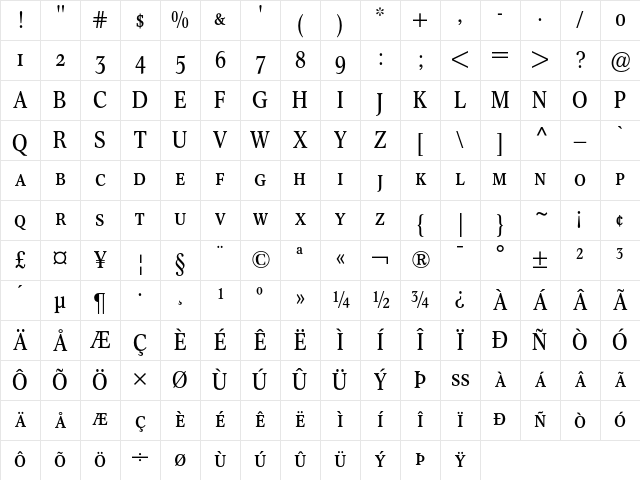
Concorde Nova Regular with Small Caps
Style: Regular with Small Caps
Complete Concorde Nova Regular with Small Caps glyph index. Displaying only characters natively supported by Concorde Nova Regular with Small Caps font.
Design Context for Concorde Nova
Concorde Nova is a composed and adaptable typeface that performs quietly and consistently across a wide range of design contexts.